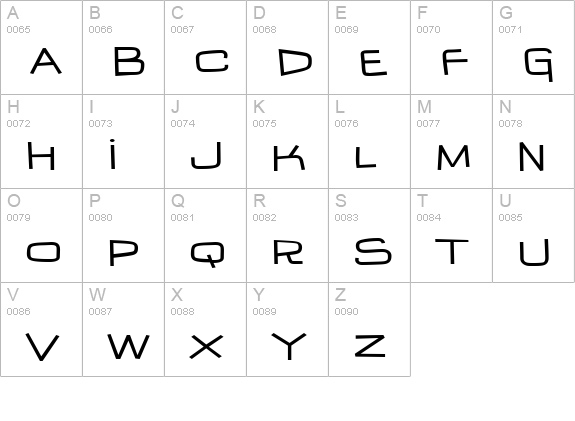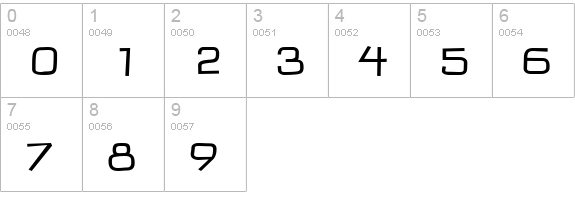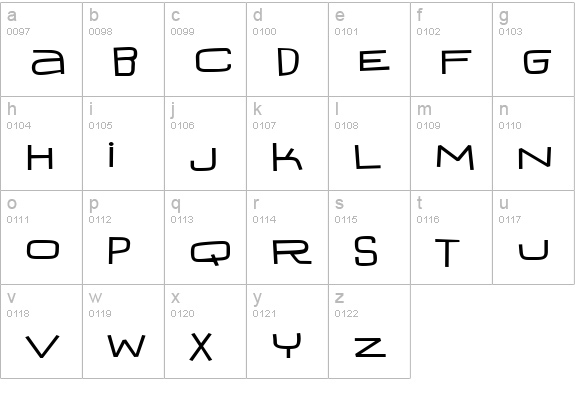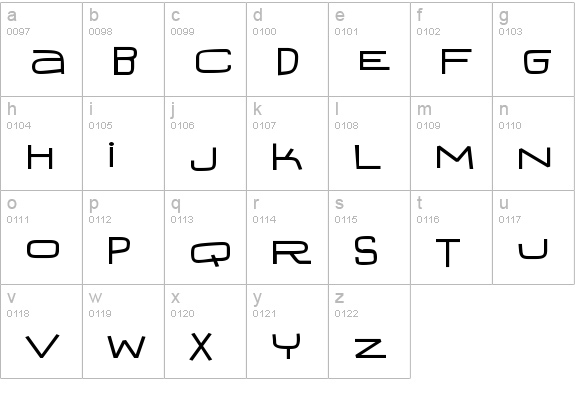
IguanaLover BTN Wide Bd is a distinctive, extended-width variant in the IguanaLover typeface family \xE2\x80\x94 well suited to design and typography projects.
IguanaLover BTN Wide Bd font is the epitome of boldness and elegance, designed for those who have a deep appreciation for the majestic beauty of iguanas. This font exudes a strong presence with its wide, bold characters that command attention and make a lasting impression. With its clean lines and perfectly balanced proportions, IguanaLover BTN Wide Bd font is the ideal choice for various design projects. Whether you are designing a logo, creating eye-catching headlines, or crafting captivating advertisements, this font will effortlessly elevate your creations to the next level. What sets IguanaLover BTN Wide Bd font apart is not just its striking appearance, but also the fact that it is freely available to download at FontsMarket.com. Yes, you read that right - this remarkable font can be yours without any cost. Embrace the beauty of iguanas and bring a touch of sophistication to your designs, all while enjoying the freedom of accessing this font at no charge. So why wait? Enhance your design arsenal with IguanaLover BTN Wide Bd font and witness the transformative power it holds. Download it today from FontsMarket.com and let your creativity soar to new heights.